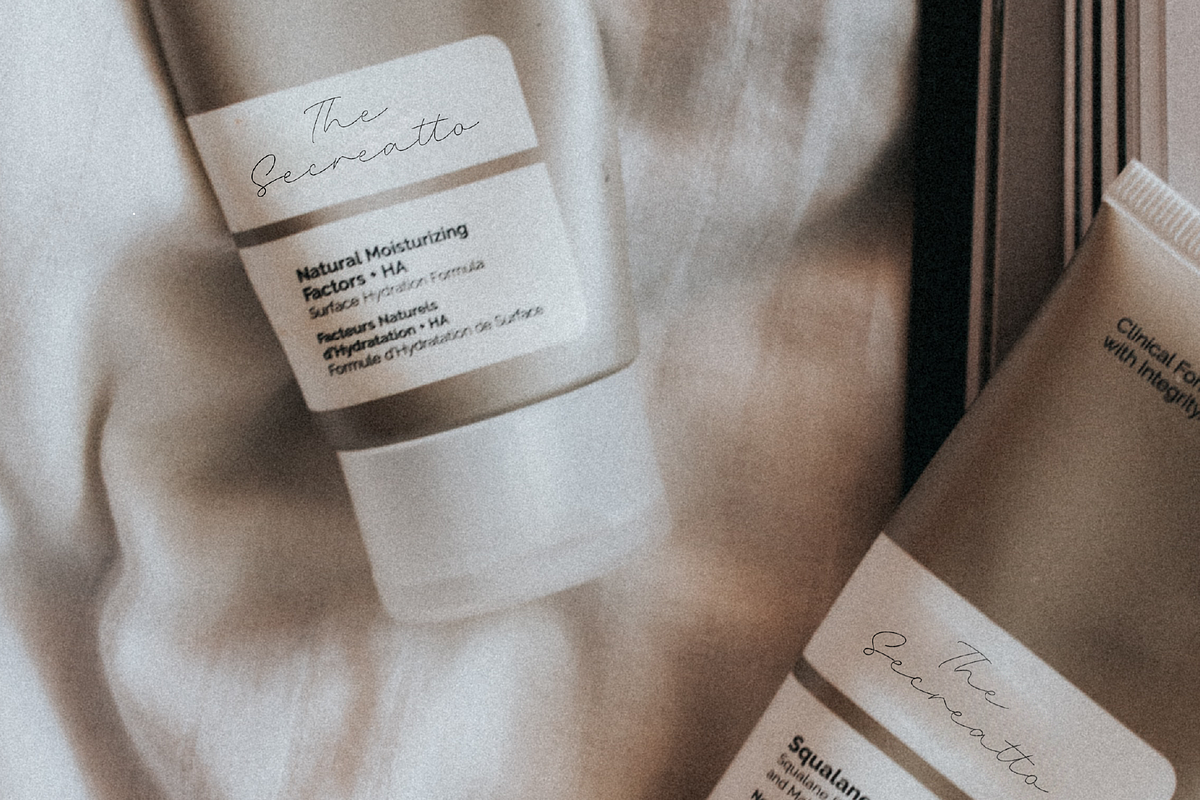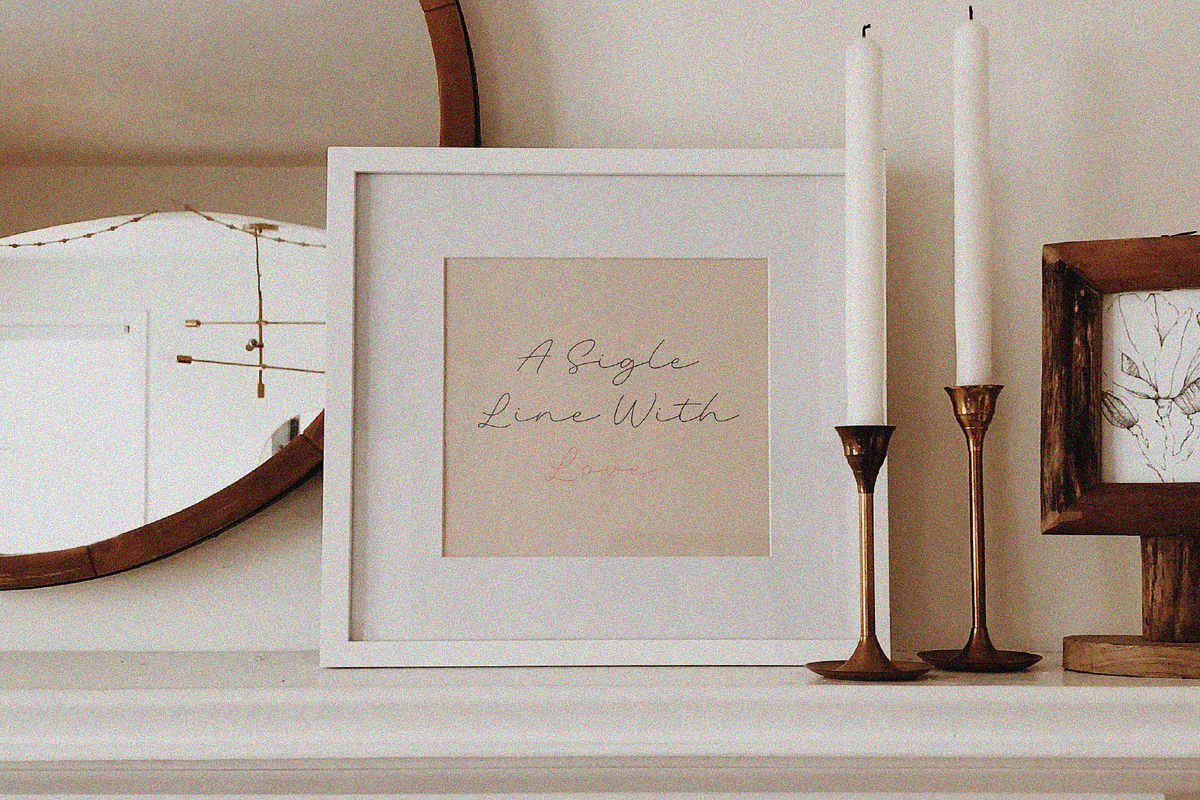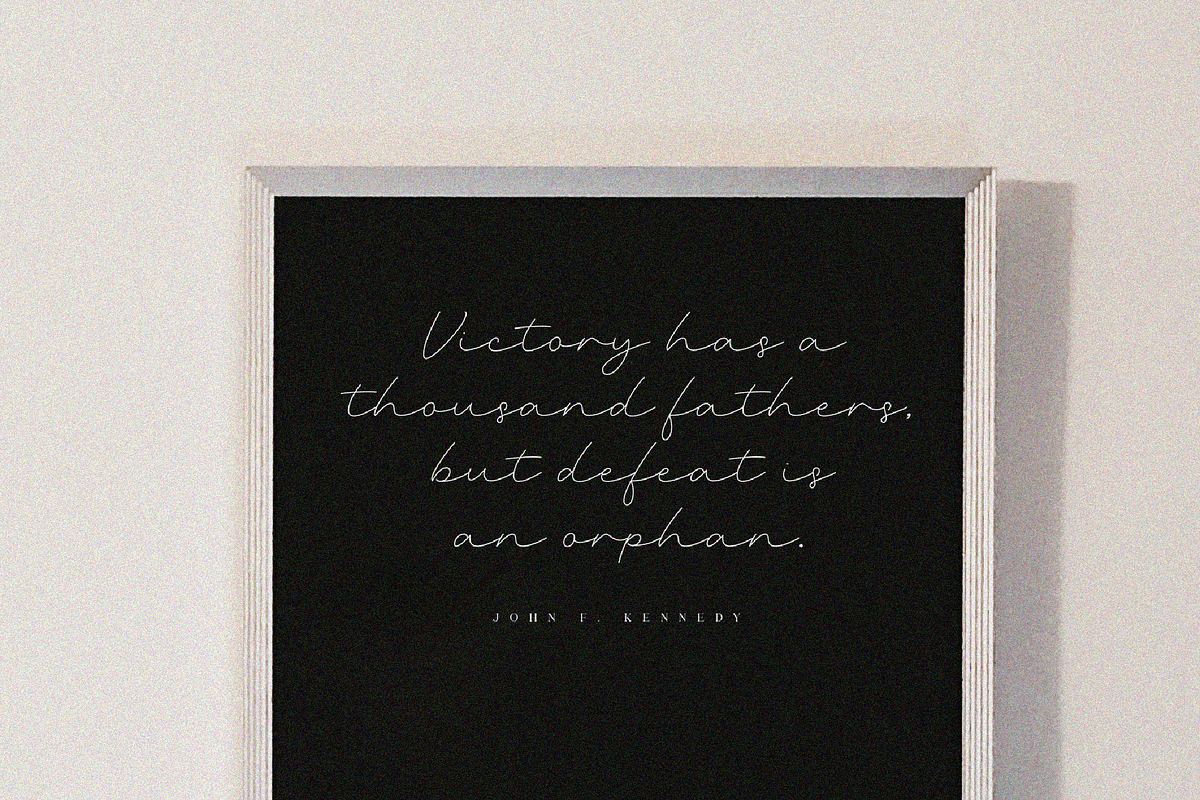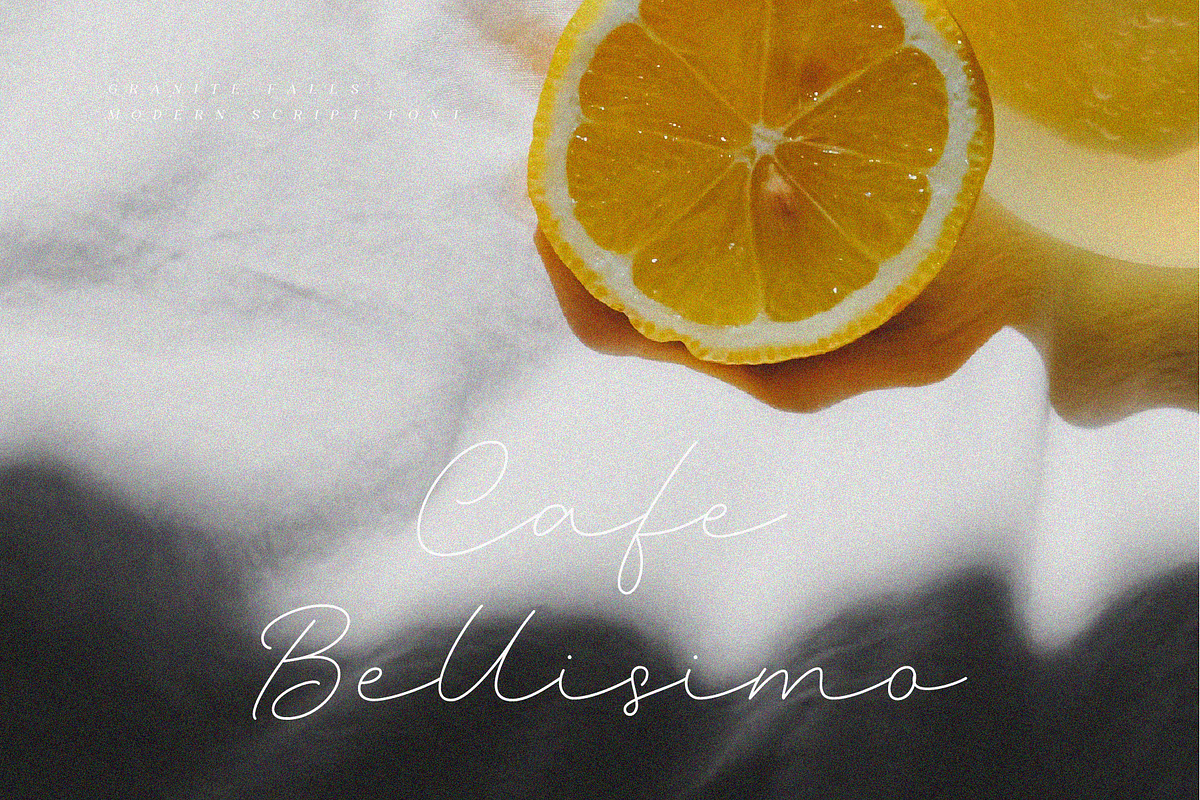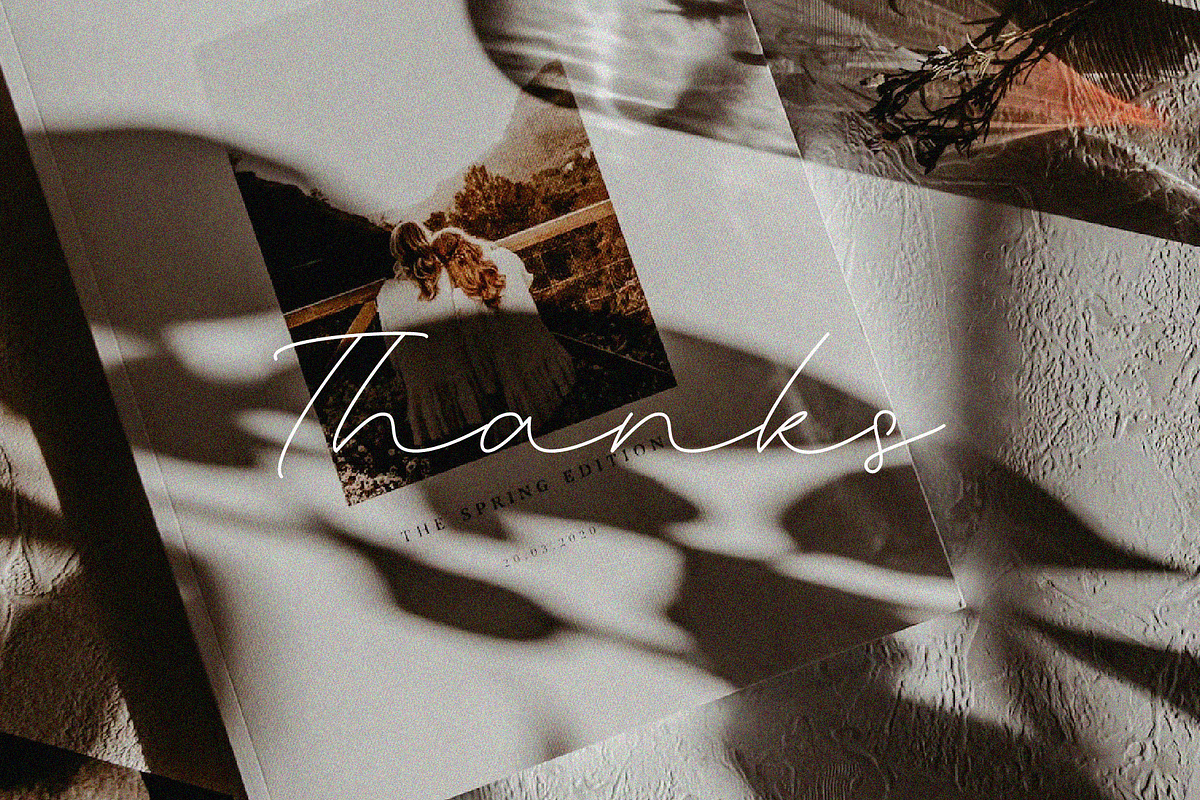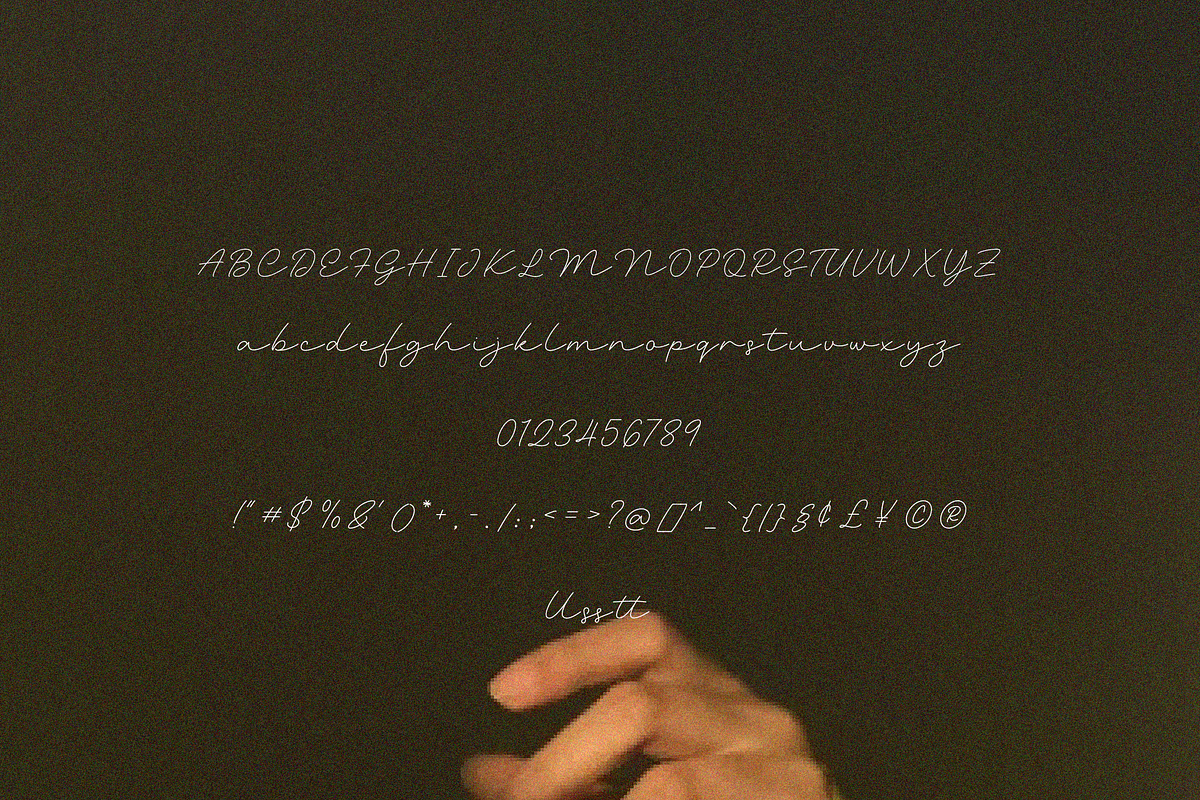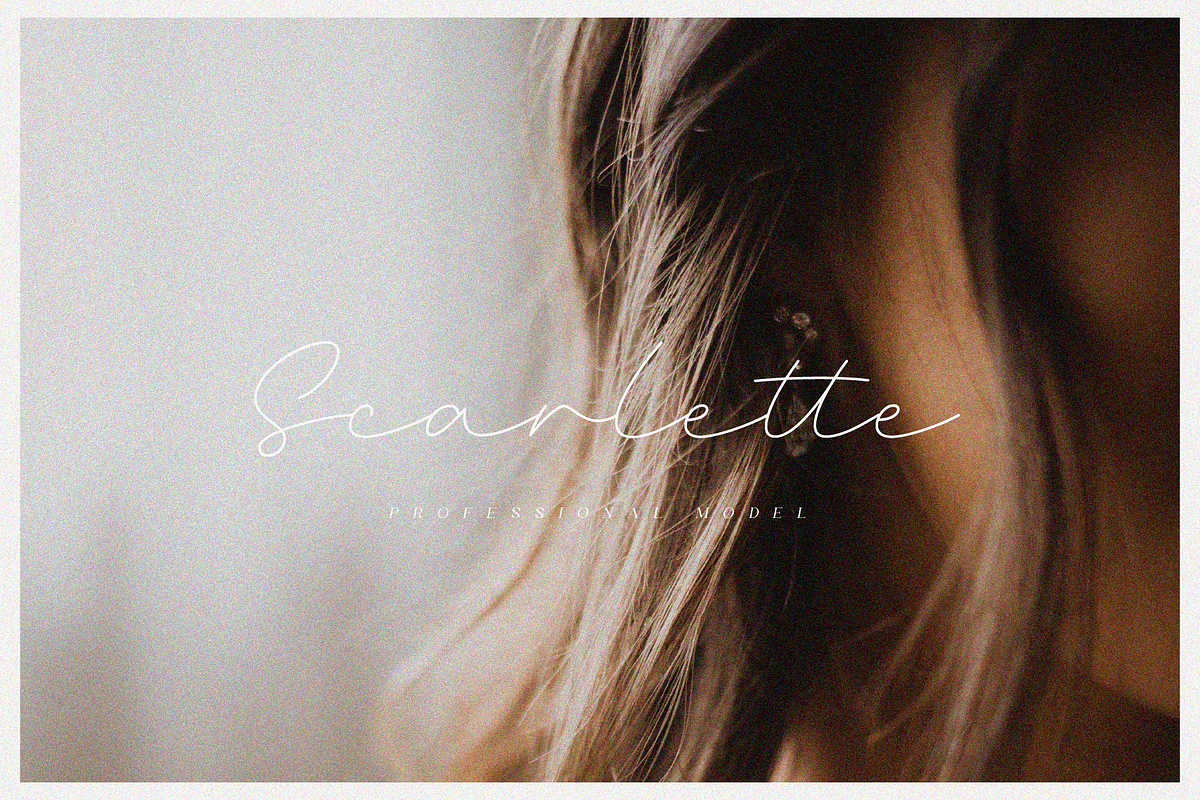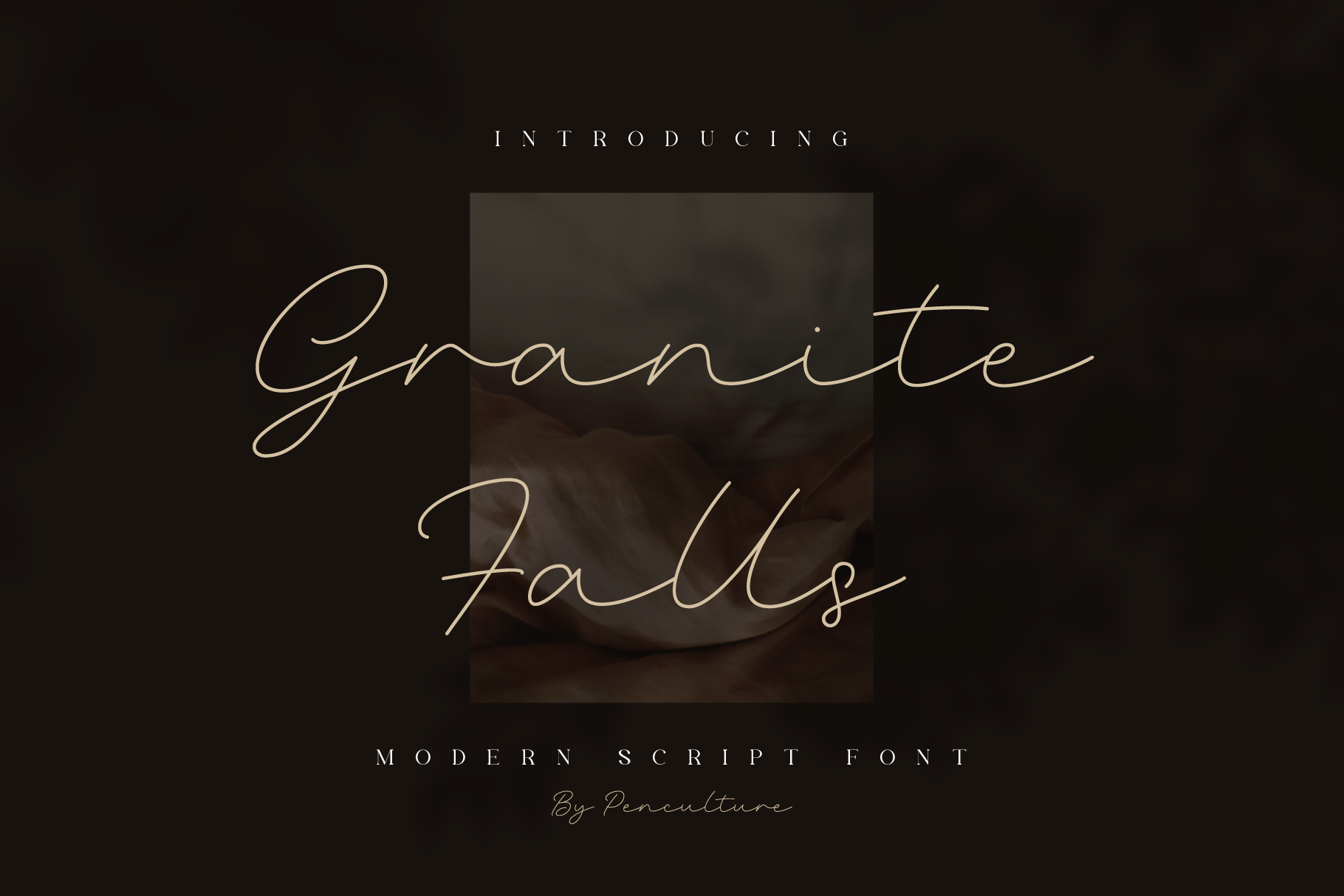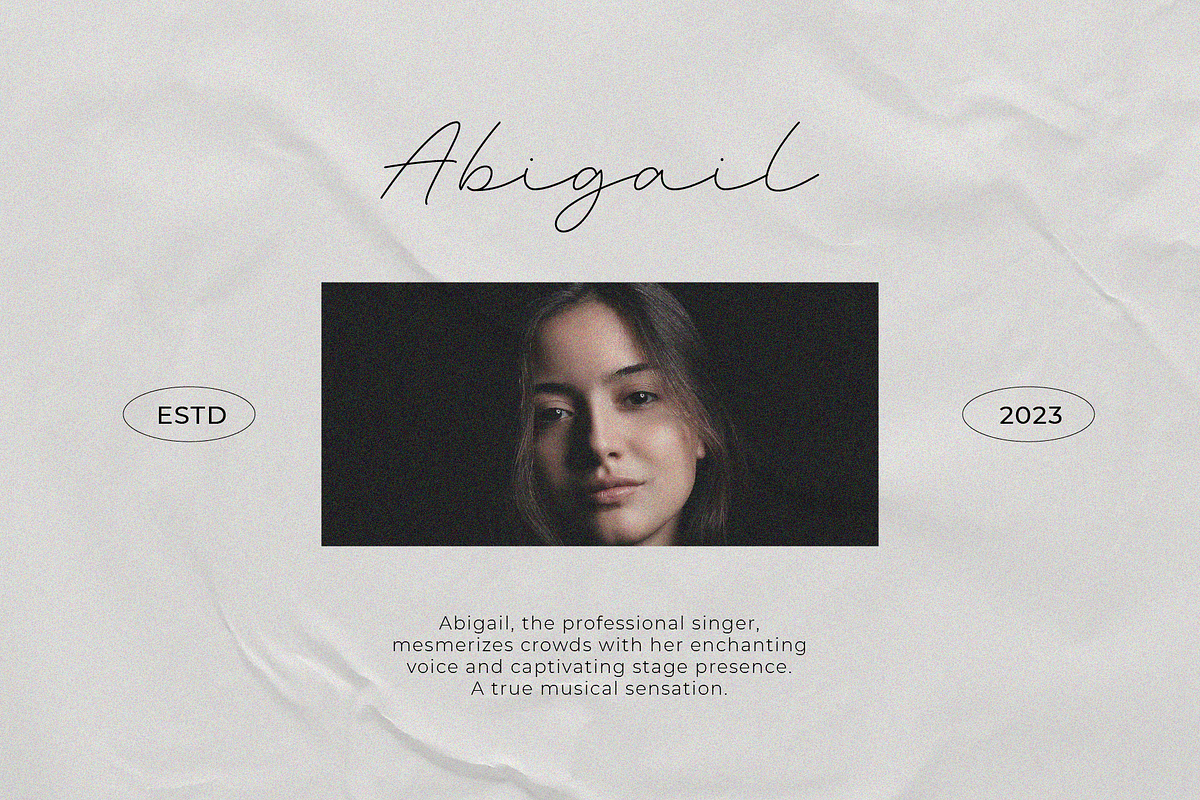
Granite Falls Script Font
Introducing Granite Falls, a captivating modern font that effortlessly blends elegance with contemporary style. With its sleek lines and refined letterforms, this font brings a touch of sophistication to any project.
The carefully crafted characters maintain a perfect balance between simplicity and uniqueness, making it ideal for a wide range of design applications. Whether it's branding, logos, headlines, or social media graphics, Granite Falls adds a modern and trendy flair.